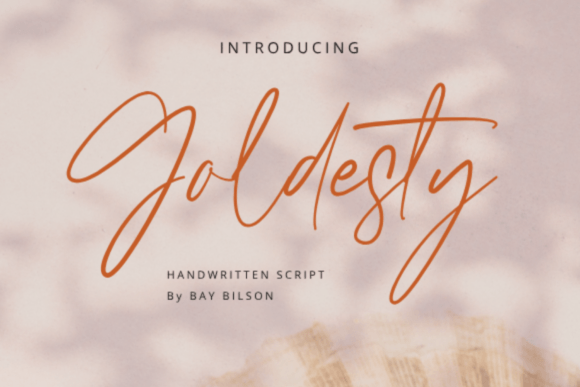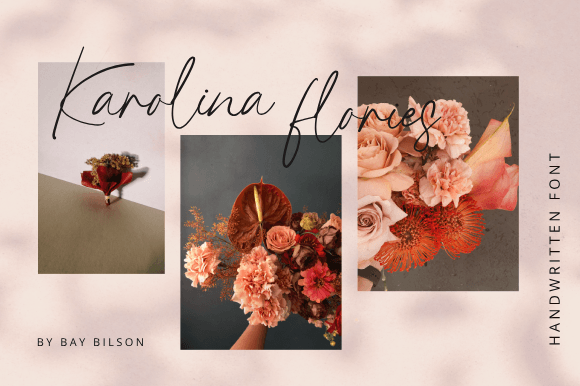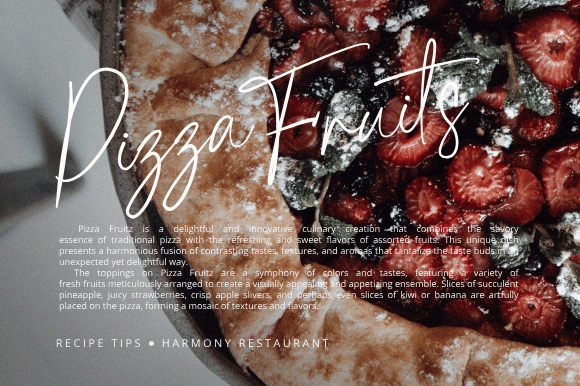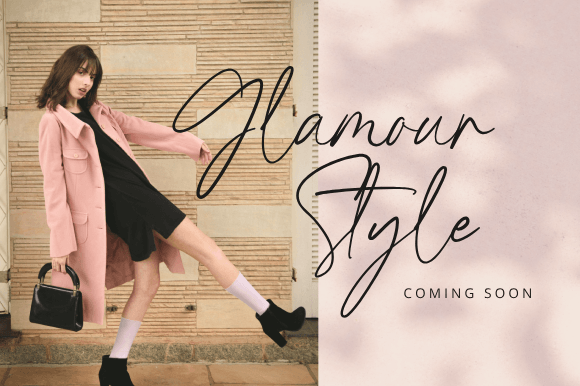
Goldesty Font: Elegant Script for Wedding Invitations & Branding
About the Goldesty Font
Let us introduce you to Goldesty Font, where timeless design meets modern craftsmanship. Goldetsy is a captivating script font that exudes a perfect blend of elegance and whimsy. Its graceful, flowing strokes evoke a sense of handcrafted artistry, reminiscent of traditional calligraphy. The letters are intricately designed, showcasing a delicate balance between sophistication and playfulness.
Goldesty thrives in applications requiring a touch of refined playfulness. It excels in logo design, short headlines, invitations, and packaging where its elegant curves and handcrafted feel add a unique visual appeal. Avoid using it for large bodies of text or UI elements; its intricate details can become illegible at smaller sizes and hinder readability.
Pairing Goldesty effectively requires considering its inherent elegance and whimsicality. A clean sans-serif like Lato or Open Sans provides a strong contrast and enhances readability when used alongside it for body copy. For a more luxurious feel, a classic serif such as Garamond or Times New Roman could create a sophisticated balance.
Goldesty’s personality is best described as elegant yet playful. It suits brands aiming for a sophisticated but approachable image, such as high-end stationery, boutiques, or artisan food products. The font’s inherent charm lends itself well to projects that emphasize craftsmanship and a touch of personality.